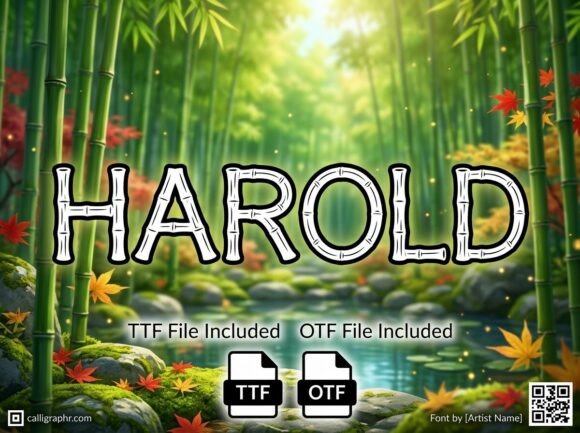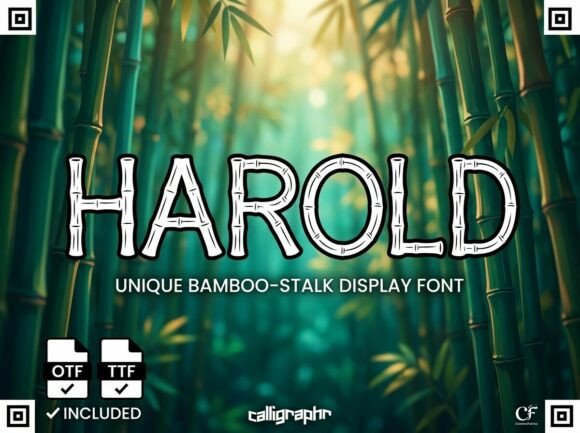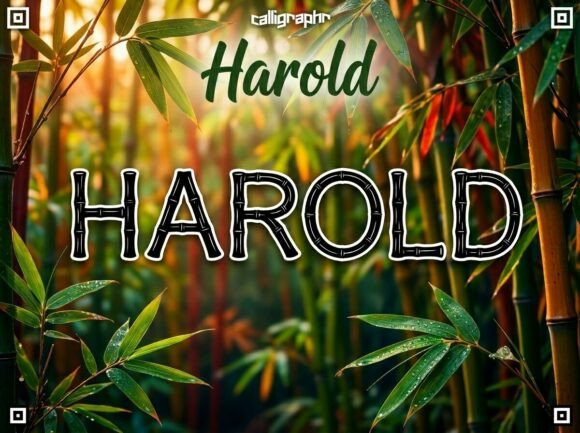
Introducing Harold Font: The Ultimate Decorative Display Font for Creative Minds
Are you tired of using the same old fonts for your creative projects? Look no further! Harold Font is a stunning decorative display font designed to grab attention and make your work stand out from the crowd. With its unique artistic elements and strong visual personality, this font is perfect for creators who want to break away from the ordinary and add a touch of elegance to their designs.
What Makes Harold Font Special?
Harold Font is a versatile decorative font that can be used for a variety of creative projects, including bold headlines, artistic logos, and creative packaging. Its professional and polished finish ensures that your work looks high-end and sophisticated, making it perfect for designers, crafters, and artists who want to add a touch of luxury to their creations.
One of the key features of Harold Font is its unique artistic elements. Each letter is carefully crafted to be a work of art, making it perfect for high-impact headlines, logos, and decorative initials. The font’s strong visual personality ensures that it commands attention and makes a lasting impression on your audience.
Important Note: All-Caps Display Typeface
Before you purchase Harold Font, it’s essential to note that it’s an ALL-CAPS (Uppercase Only) display typeface. This means that it does not include lowercase letters. The font is specifically designed for high-impact headlines, logos, and decorative initials where every letter is a work of art.
If you’re looking for a font that can be used for body text or other applications that require lowercase letters, Harold Font may not be the best choice. However, if you need a font that can make a statement and add a touch of elegance to your designs, Harold Font is an excellent option.
Use Cases for Harold Font
Harold Font is perfect for a variety of creative projects, including:
- Bold Headlines: Use Harold Font to create eye-catching headlines that grab attention and make a lasting impression on your audience.
- Artistic Logos: Create stunning logos that showcase your brand’s personality and style with Harold Font.
- Creative Packaging: Add a touch of elegance to your packaging designs with Harold Font.
- Decorative Initials: Use Harold Font to create beautiful decorative initials that add a touch of sophistication to your designs.
Harold Font is a stunning decorative display font that’s perfect for creative minds who want to break away from the ordinary. With its unique artistic elements, strong visual personality, and professional finish, this font is ideal for bold headlines, artistic logos, creative packaging, and decorative initials.